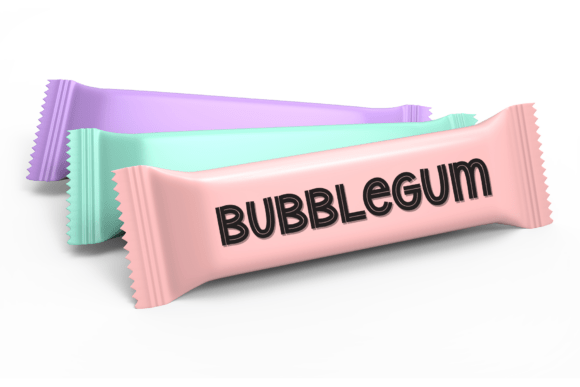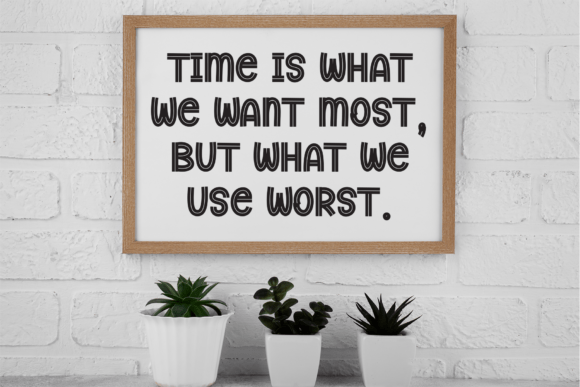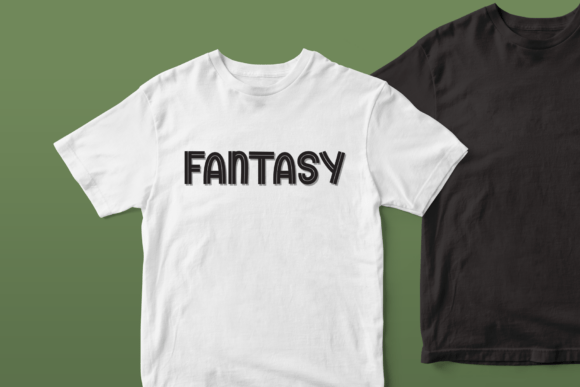
Introduction to Besmart Font
The Besmart Font is a unique, β€œinline” style display typeface that perfectly blends retro nostalgia with modern technical precision.
This Besmart typeface features double-lined characters that create a sense of depth and movement, making it look as though it’s glowing like a neon sign or a futuristic interface It is a smart choice for designers who want to inject a bit of β€œtechno-cool” into their branding.
Why Choose Besmart Font?